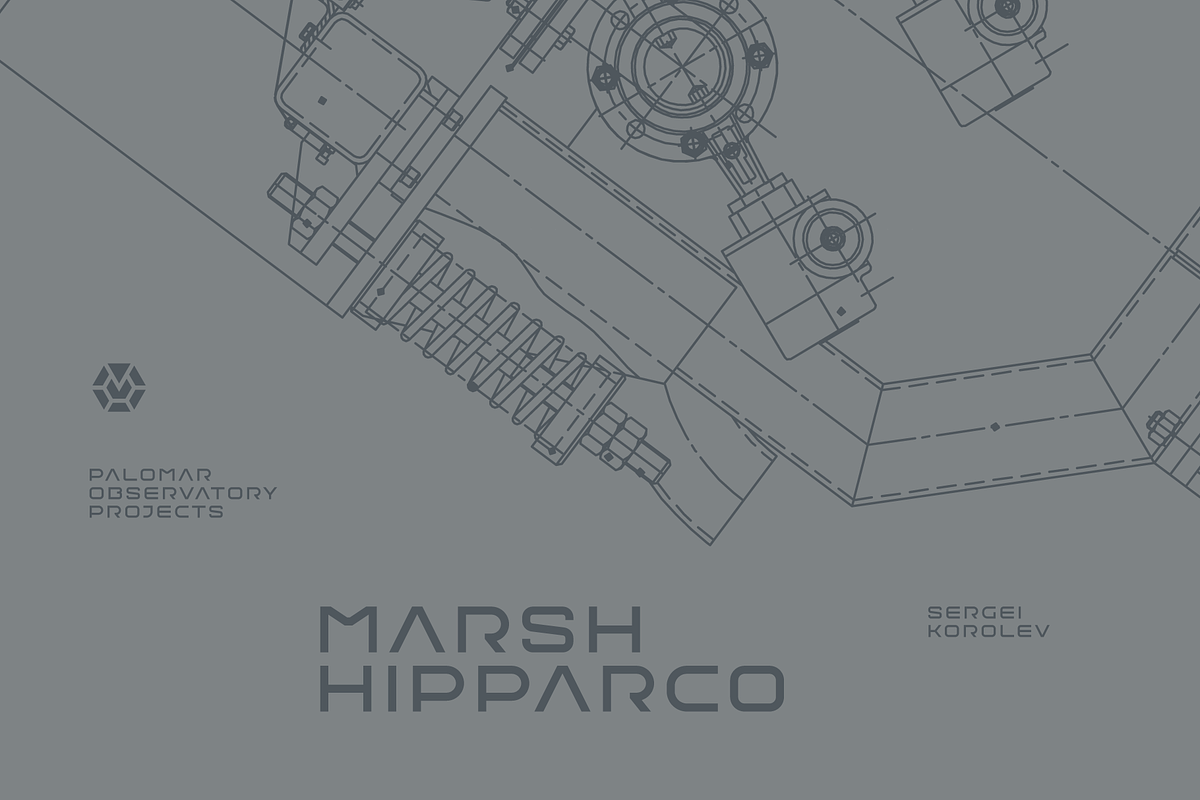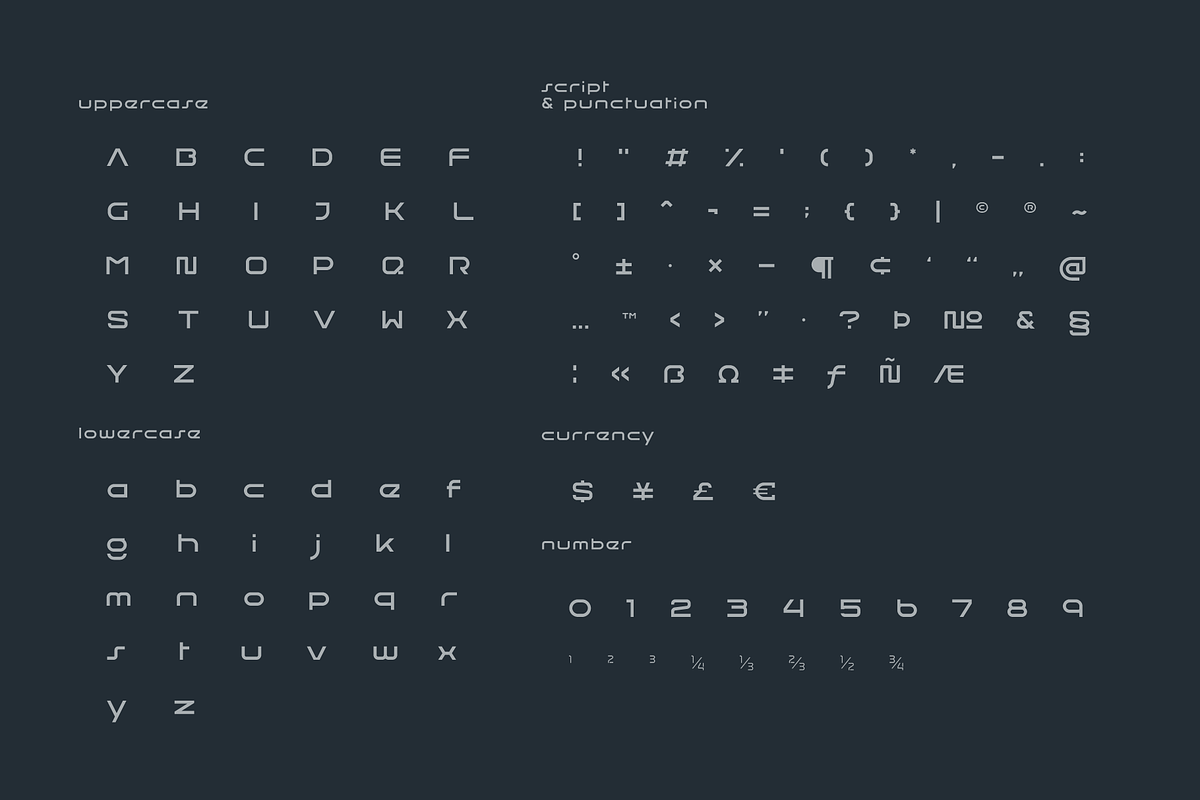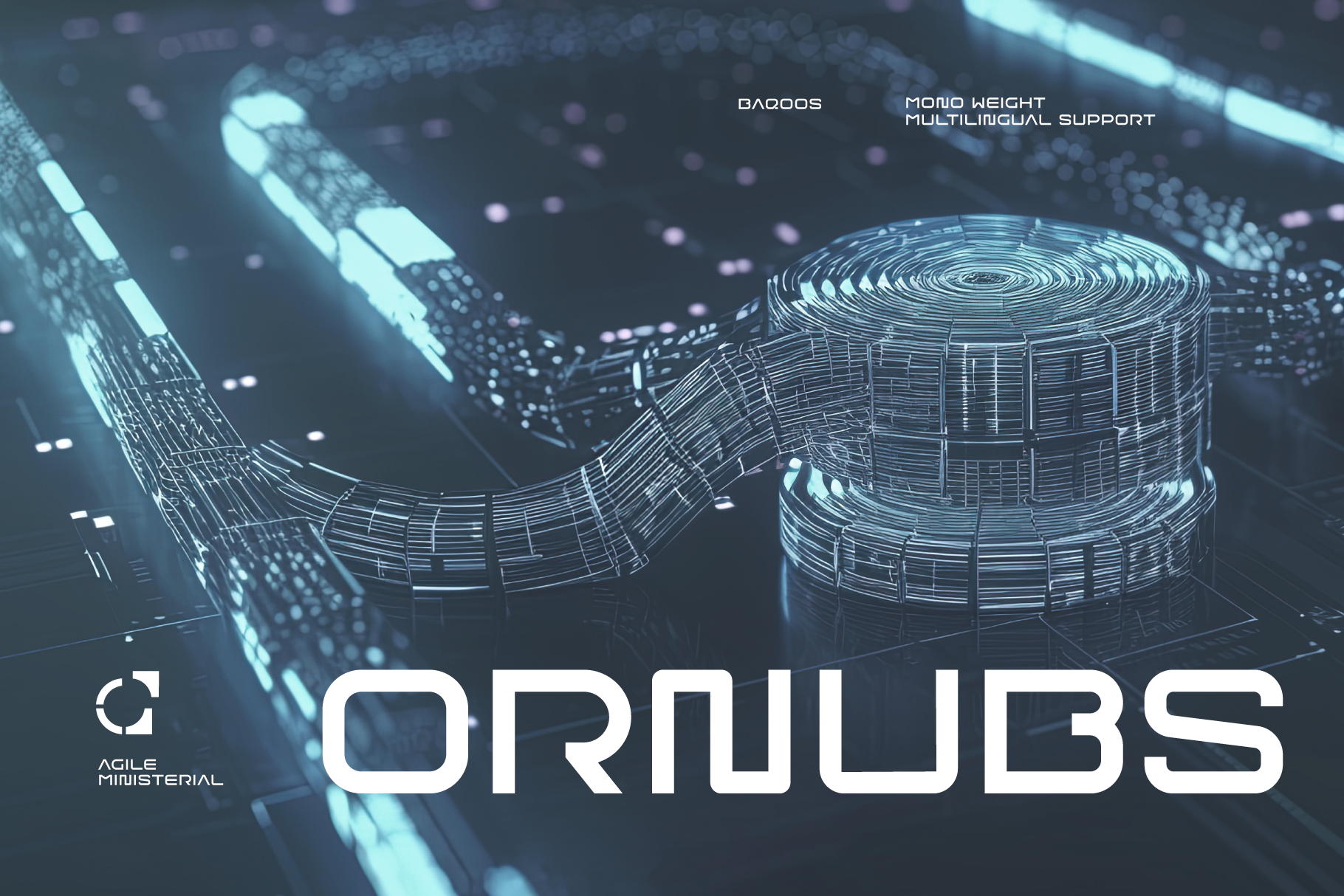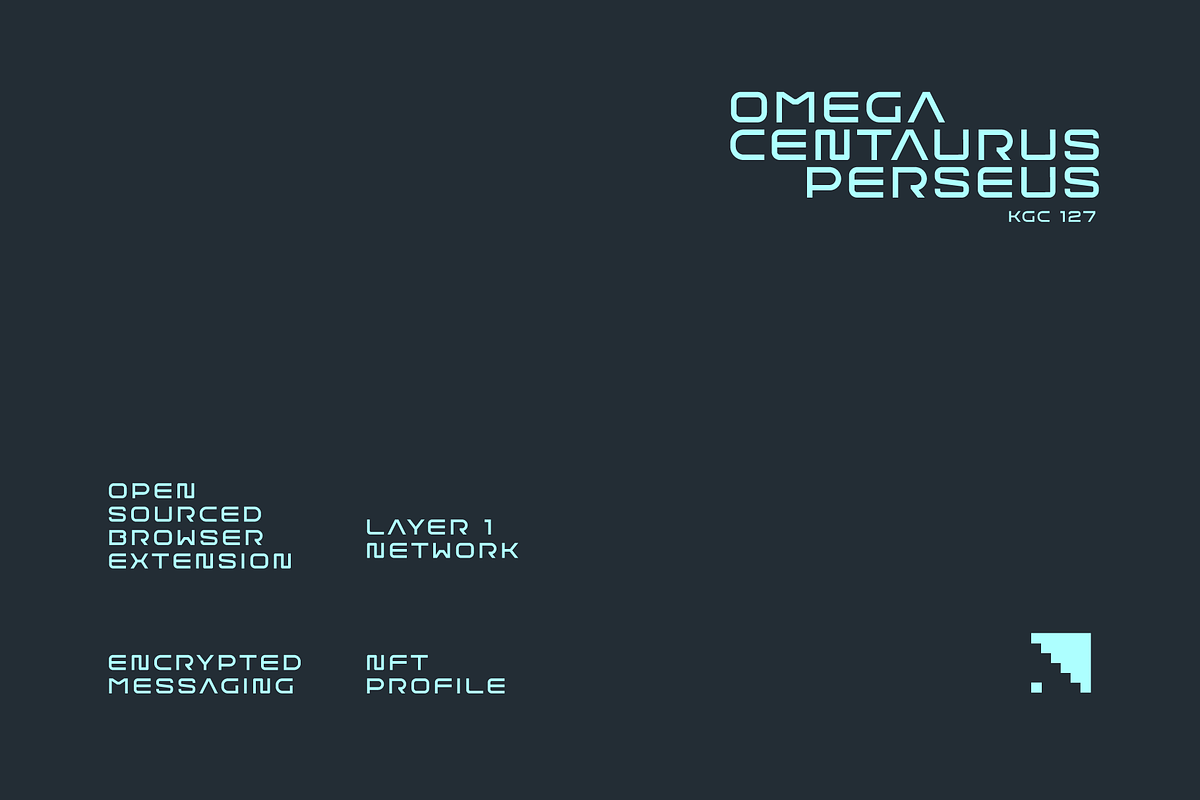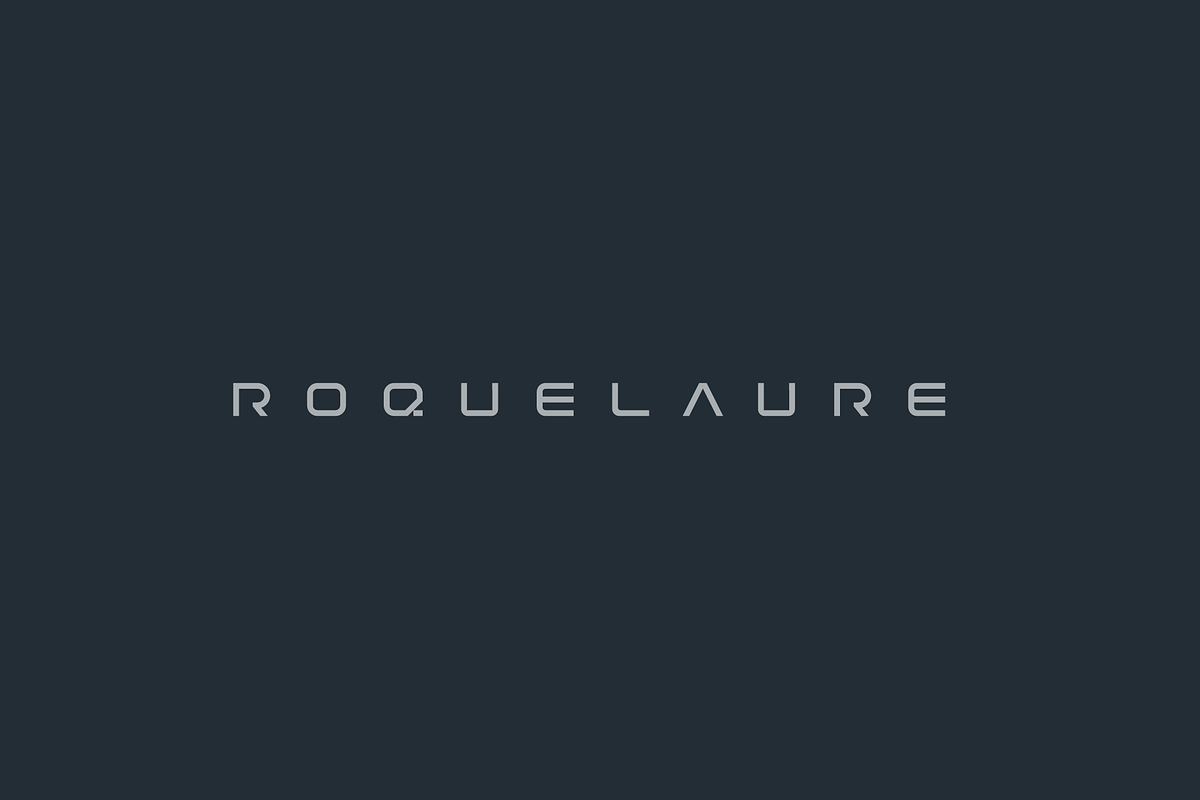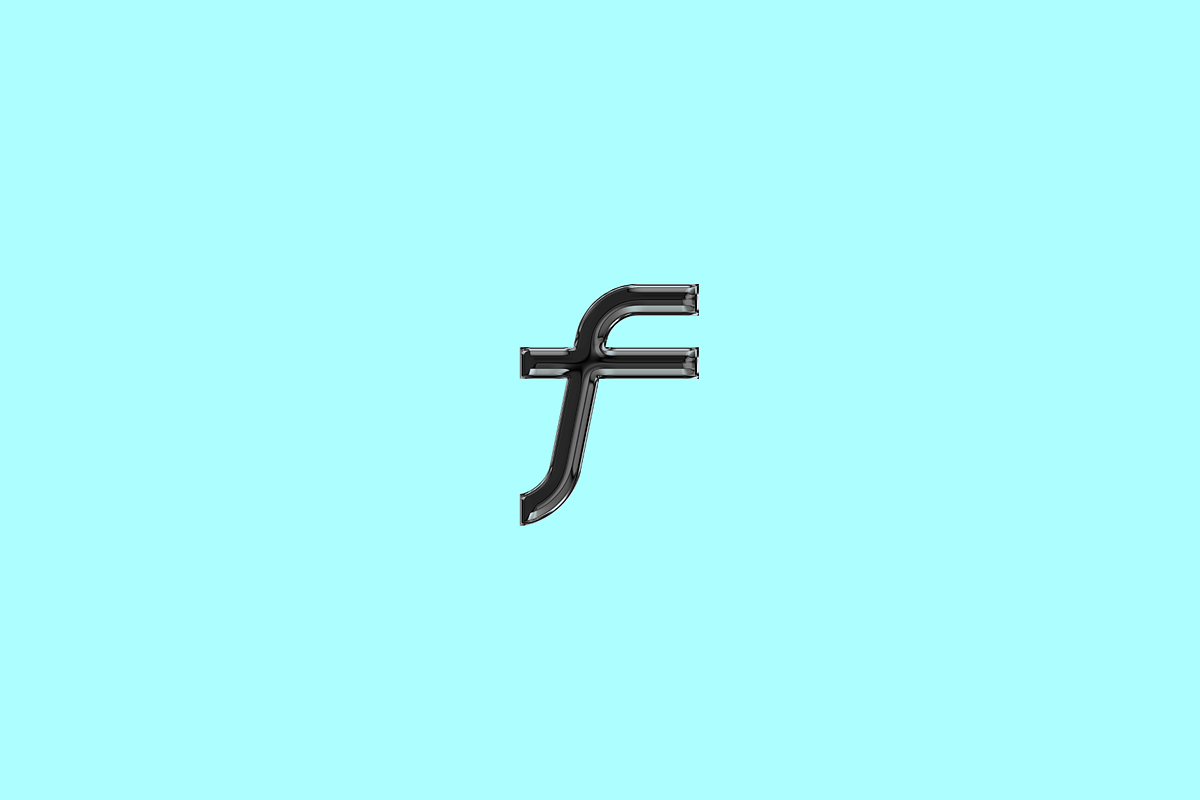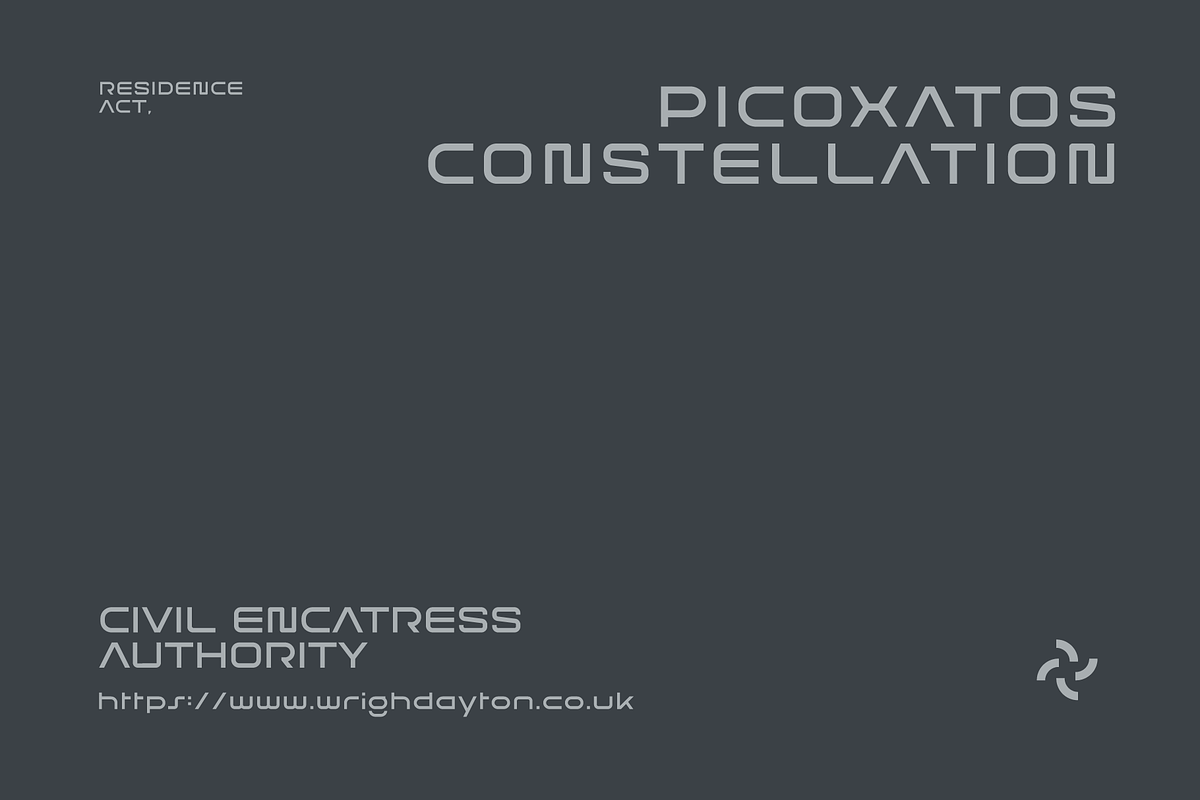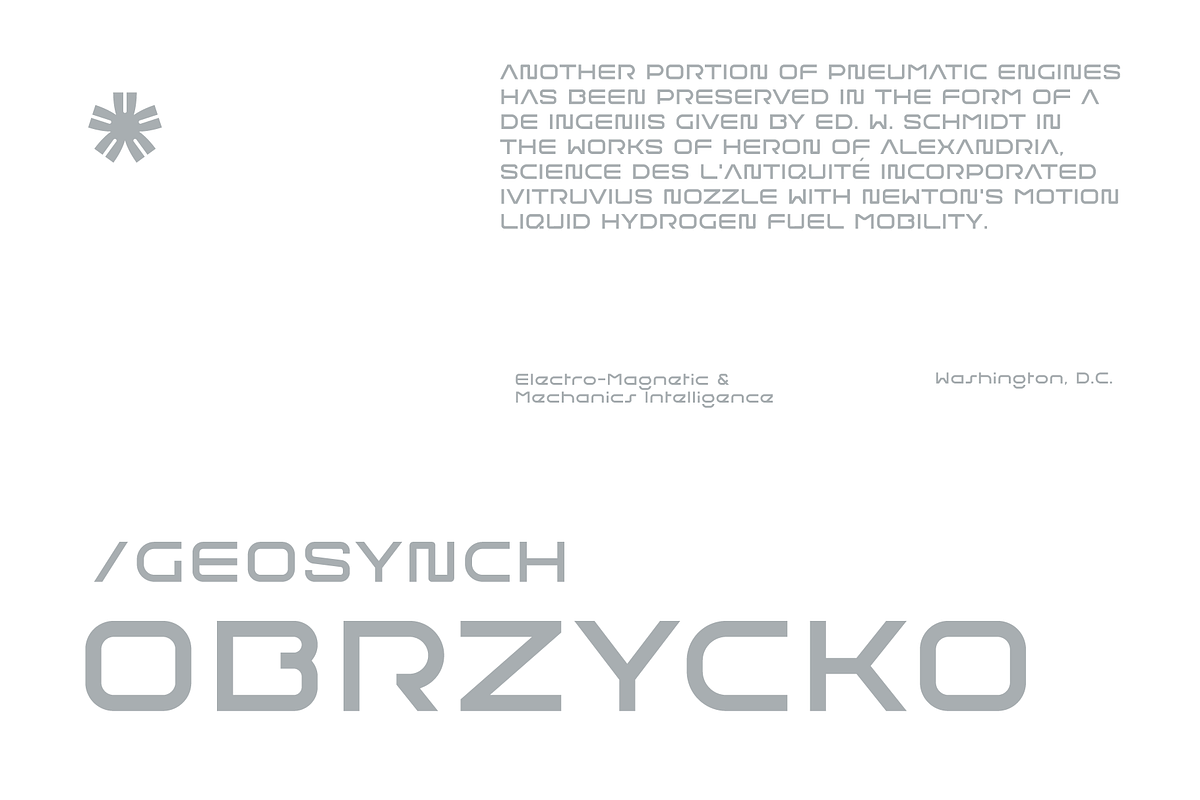
Ornubs Font
Ornubs is an agile ministerial mono lineal typeface apt for headline, editorial, branding, packaging, printed materials and typographic applications. 220+ glyphs including punctuation and numerical.